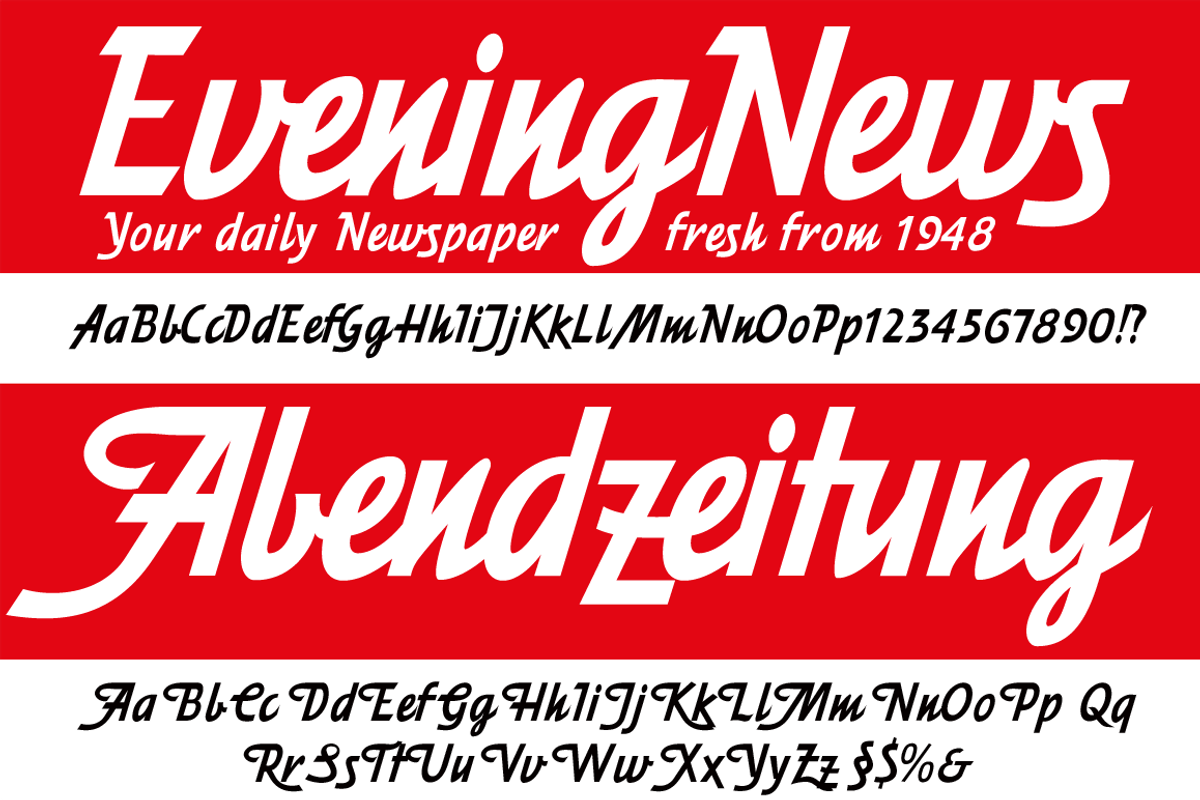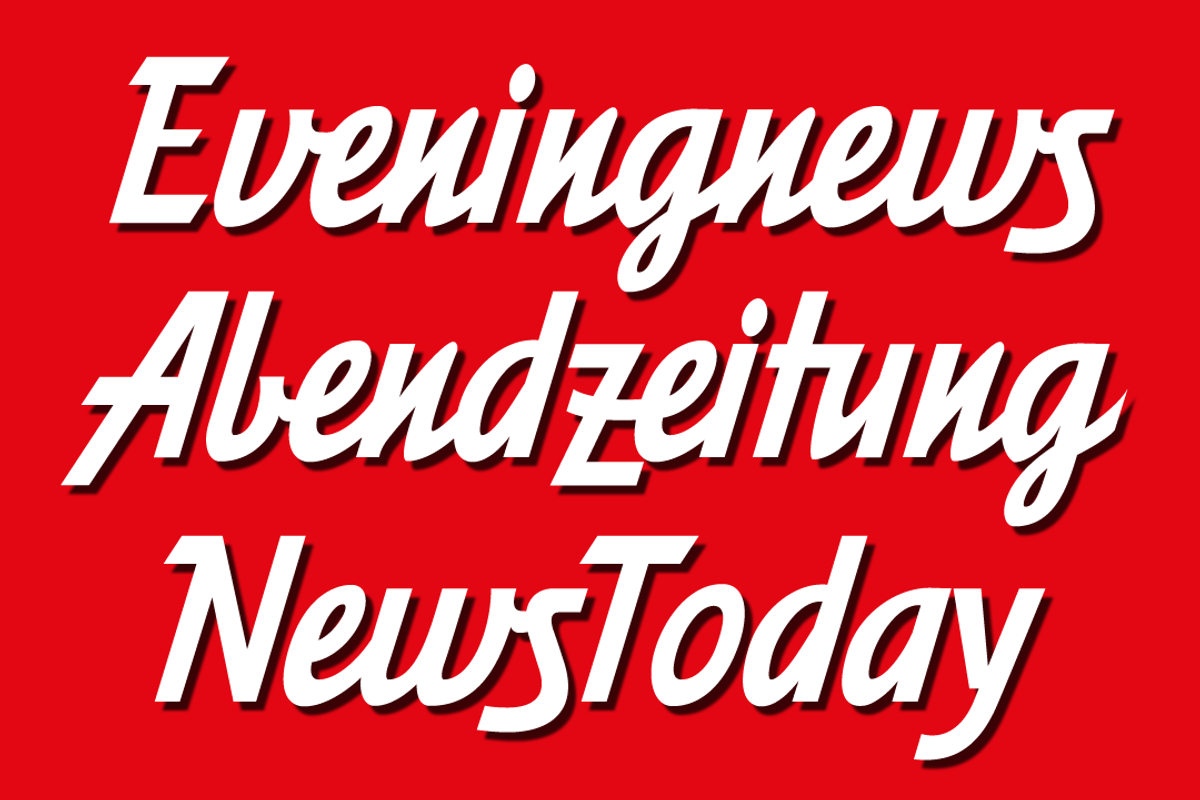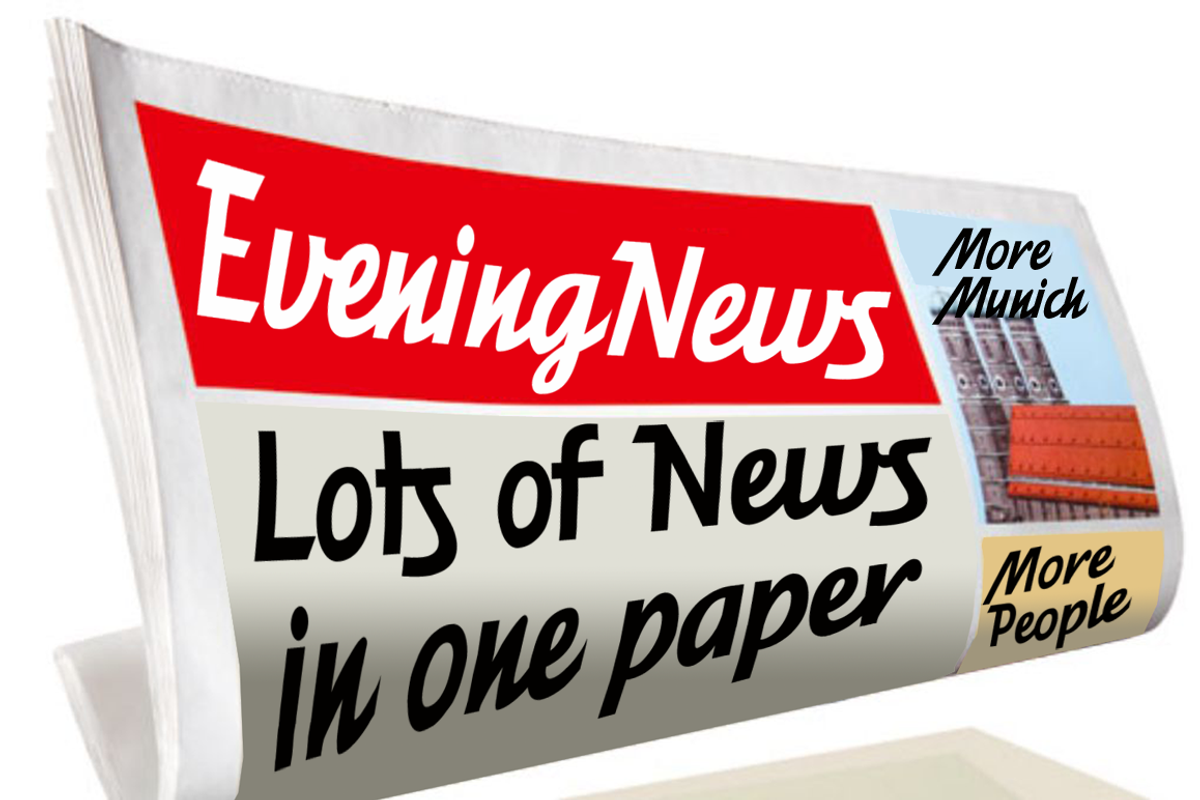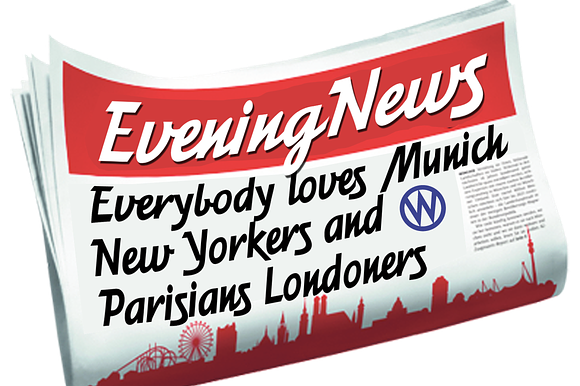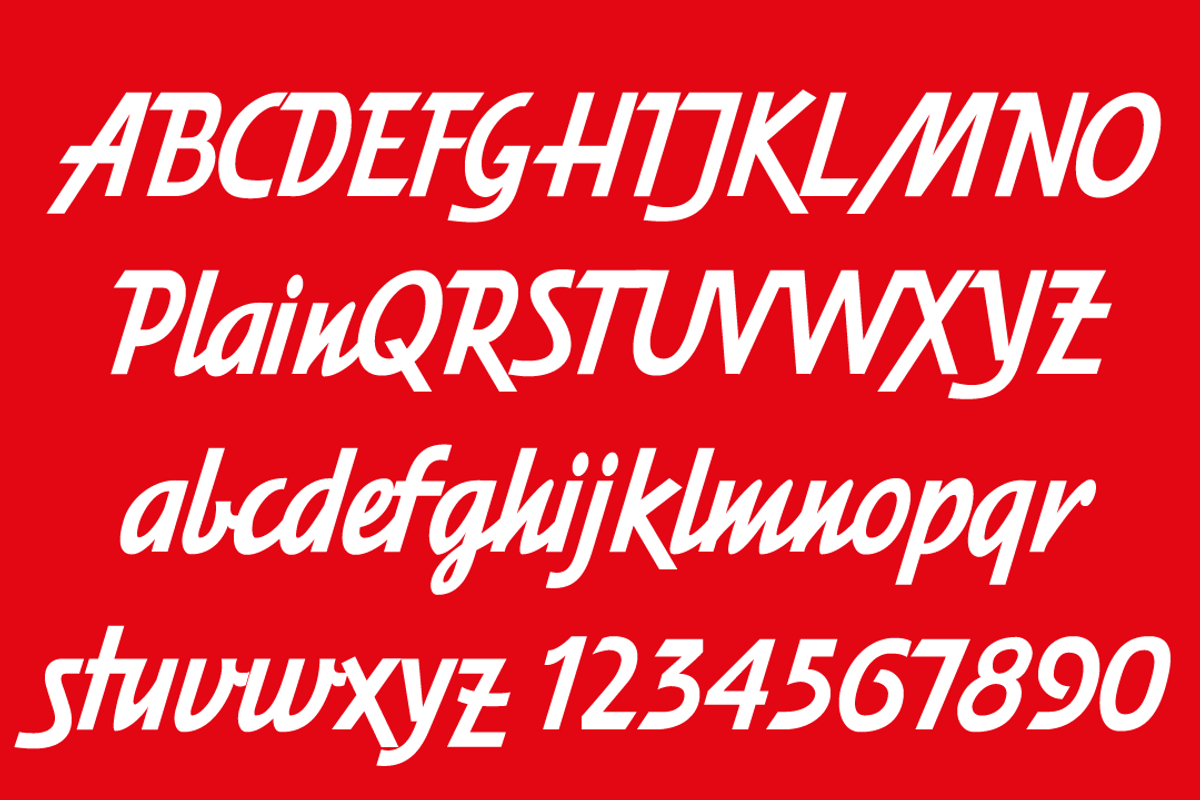
Eveningnews fonts
Since many years I live in Munich and read the daily newspaper Abendzeitung. The old hand-lettered title lettering designed by in-house designer Ernst Friedrich Adler around 1947 or 48 was almost untouched. Adler had worked for the newspaper an incredible 47 years!
Starting from this logotype I designed an entire typeface and added a second fancy cut. And, what do you know, the people at the Abendzeitung called me up and said they liked what I did and started using it. Now you can buy these two fonts for a very good price and start your own »Eveningnews«!
- Eveningnews Plain
- Eveningnews Fancy